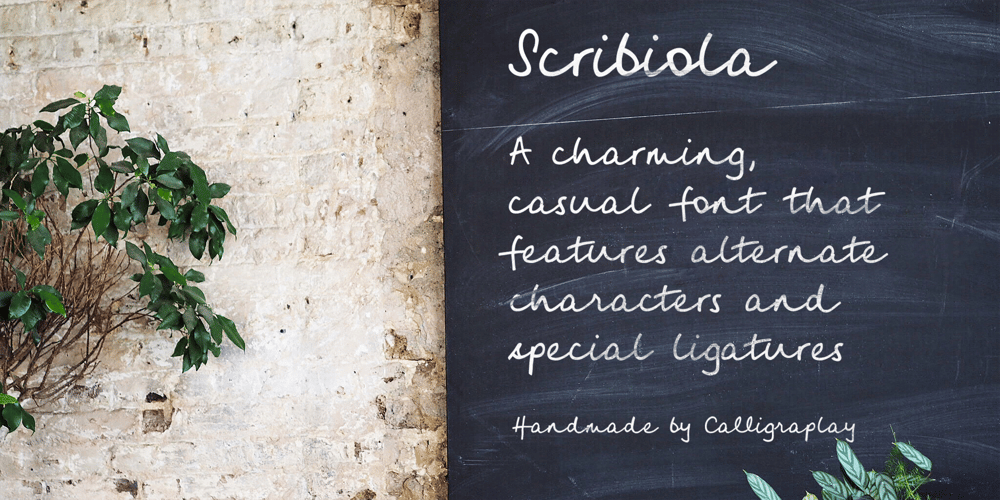
Scribiola Font Family was designed by Sarah-Jane Loveday and published by Calligraplay. Scribiola contains 1 styles and family package options. Scribiola is a charming, casual font that features alternate characters and special ligatures.Its unique double letter pairings make it feel authentically handwritten, perfect for any quirky or craft-related design, especially chalkboards, cards and labels.